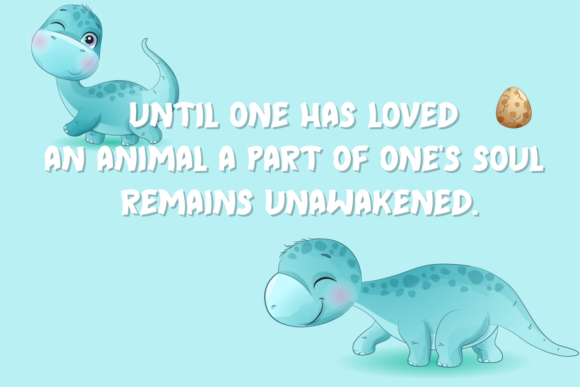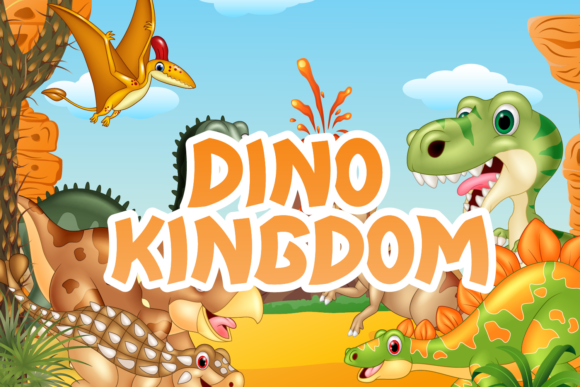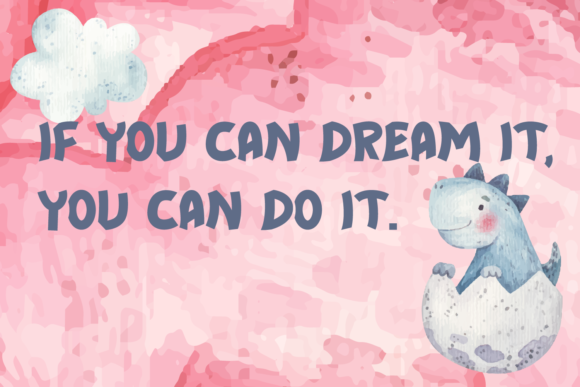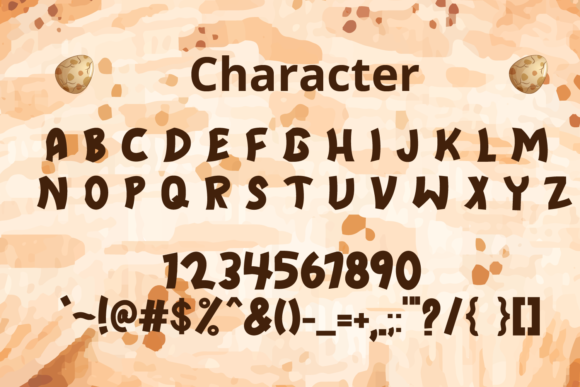
Dino Sky Font: The Perfect Choice for Kids’ Designs
Are you a designer or crafter looking for a font that’s perfect for kids’ themed designs? Look no further than the Dino Sky font! This incredibly cute and thick lettered display font is sure to capture the attention of kids and parents alike. In this article, we’ll take a closer look at the Dino Sky font, its features, and how you can use it to create amazing designs.
What is Dino Sky Font?
Dino Sky font is a display font designed specifically for kids’ themed designs. It’s a bold, thick lettered font that’s perfect for headlines, titles, and other design elements that need to make a statement. The font is incredibly cute, with a playful and fun vibe that’s sure to appeal to kids and parents alike.
Features of Dino Sky Font
- Thick Lettering: The Dino Sky font features thick, bold lettering that’s perfect for display purposes.
- Cute and Playful: The font has a cute and playful vibe that’s sure to appeal to kids and parents alike.
- Perfect for Kids’ Designs: The font is designed specifically for kids’ themed designs, making it perfect for projects such as children’s books, posters, and crafts.
- Easy to Read: Despite its bold and playful design, the font is easy to read, making it perfect for use in titles, headings, and other design elements.
How to Use Dino Sky Font
The Dino Sky font is incredibly versatile and can be used in a variety of design projects. Here are a few ideas to get you started:
- Children’s Books: Use the Dino Sky font to create fun and engaging titles, headings, and illustrations for children’s books.
- Posters and Flyers: The font is perfect for creating eye-catching posters and flyers for kids’ events, such as birthday parties, school events, and more.
- Crafts and DIY Projects: Use the font to create fun and playful titles and labels for crafts and DIY projects, such as kids’ party favors, decorations, and more.
- Digital Designs: The font can also be used in digital designs, such as social media graphics, blog posts, and more.
Tips for Using Dino Sky Font
Here are a few tips for using the Dino Sky font in your designs:
- Combine with Bright Colors: The font looks amazing when combined with bright, bold colors. Try pairing it with colors like pink, blue, yellow, and green to create a fun and playful design.
- Use it as a Statement Font: The Dino Sky font is perfect for use as a statement font. Use it to create eye-catching headlines, titles, and other design elements that need to make a statement.
- Experiment with Different Sizes: The font looks great in a variety of sizes. Experiment with different sizes to see what works best for your design.